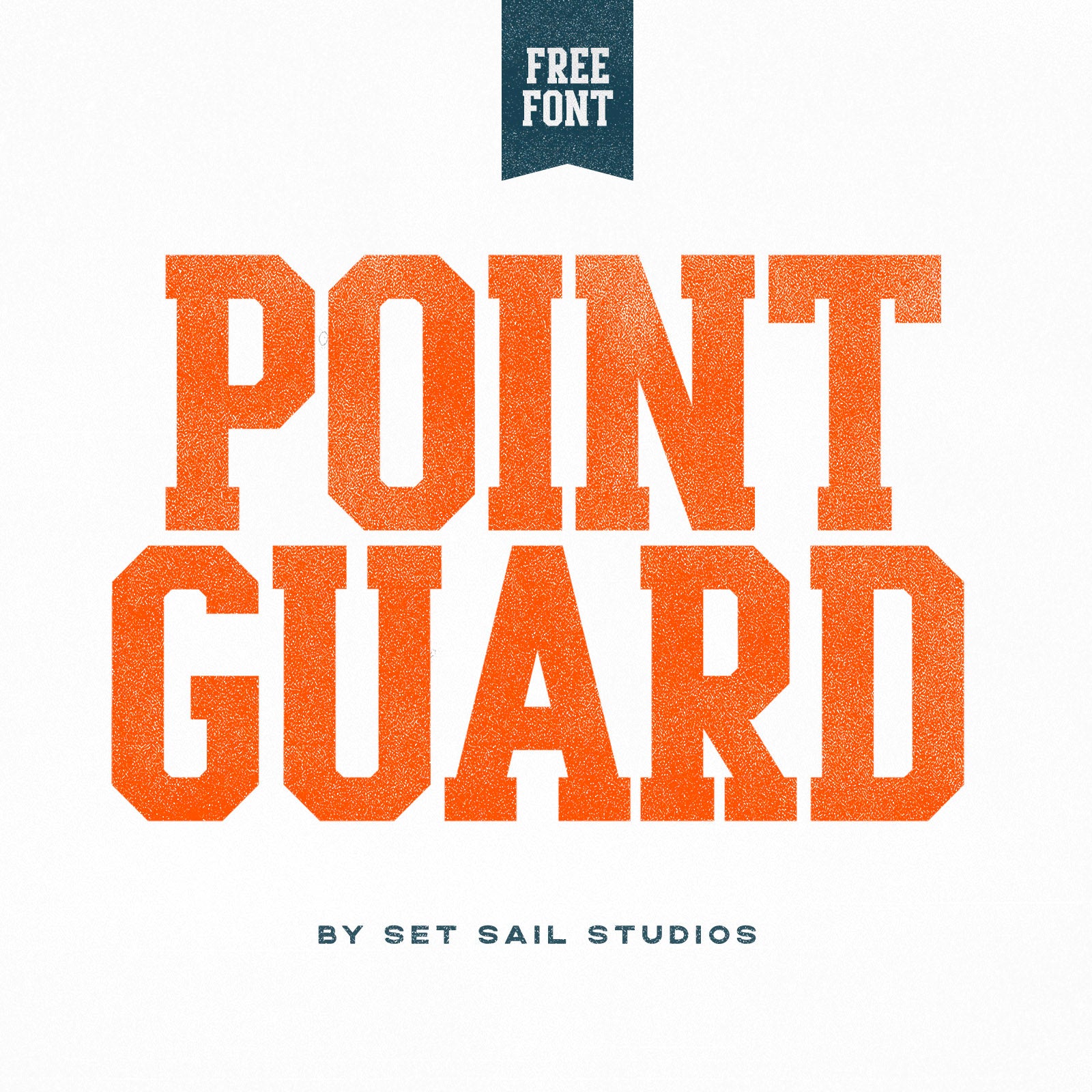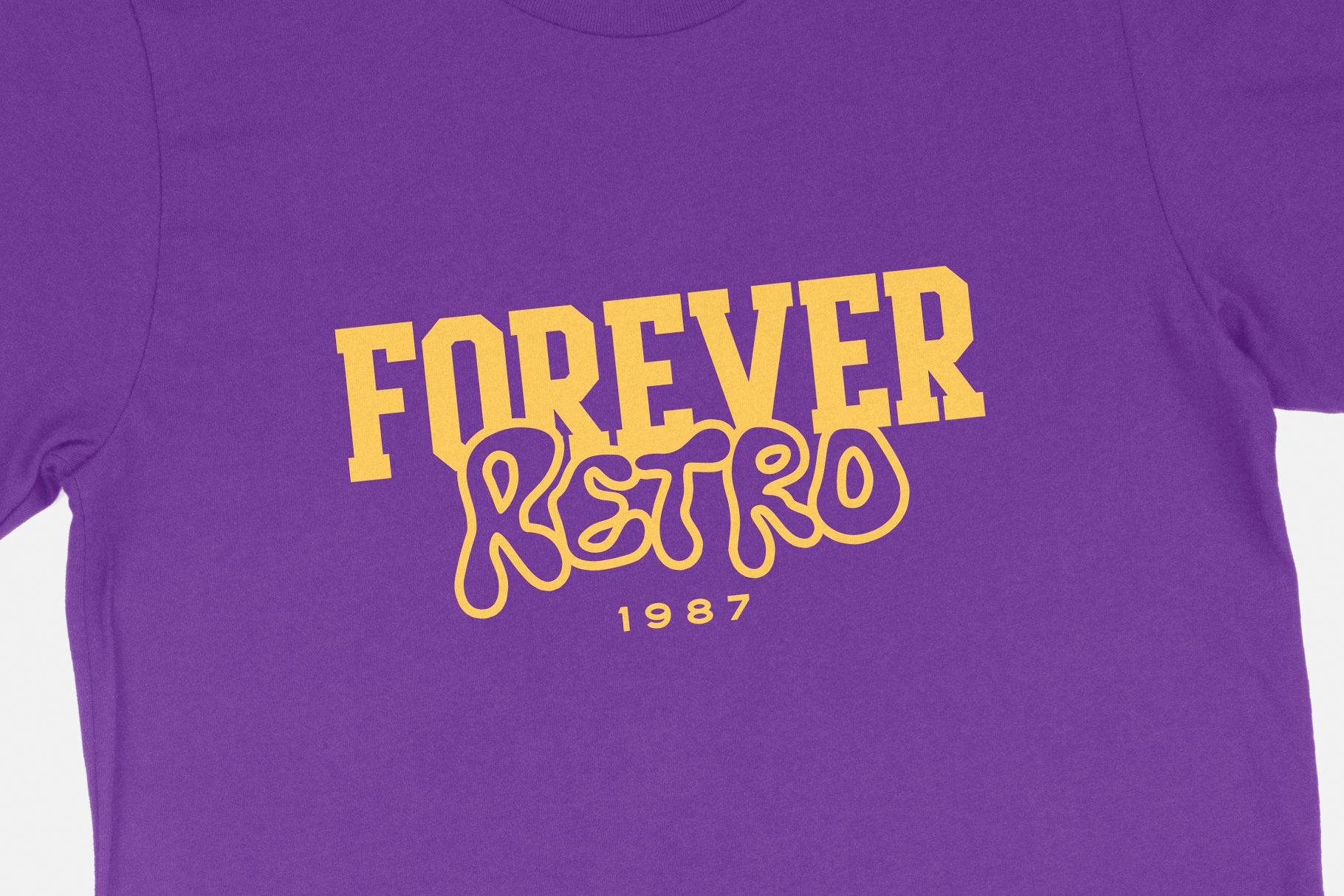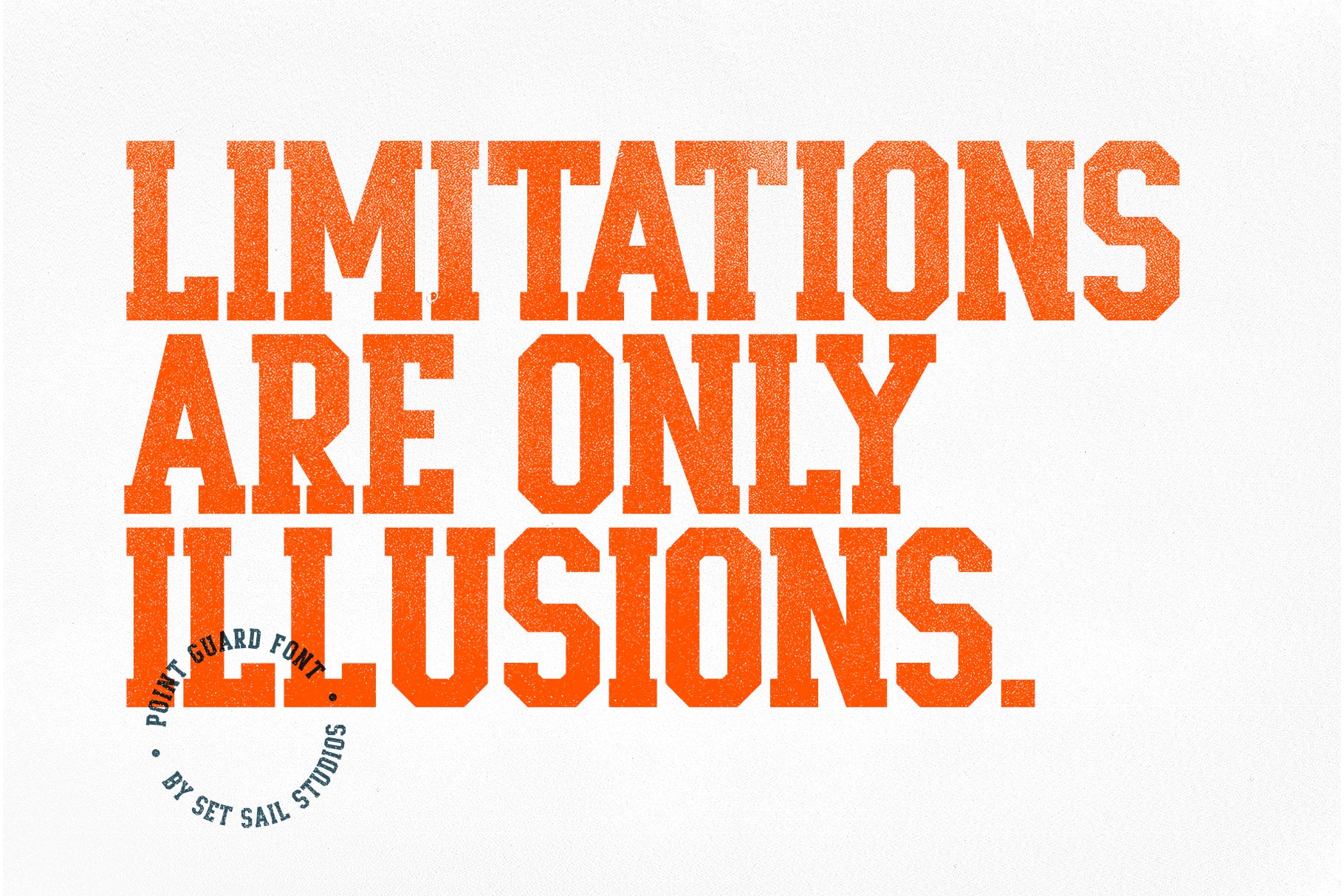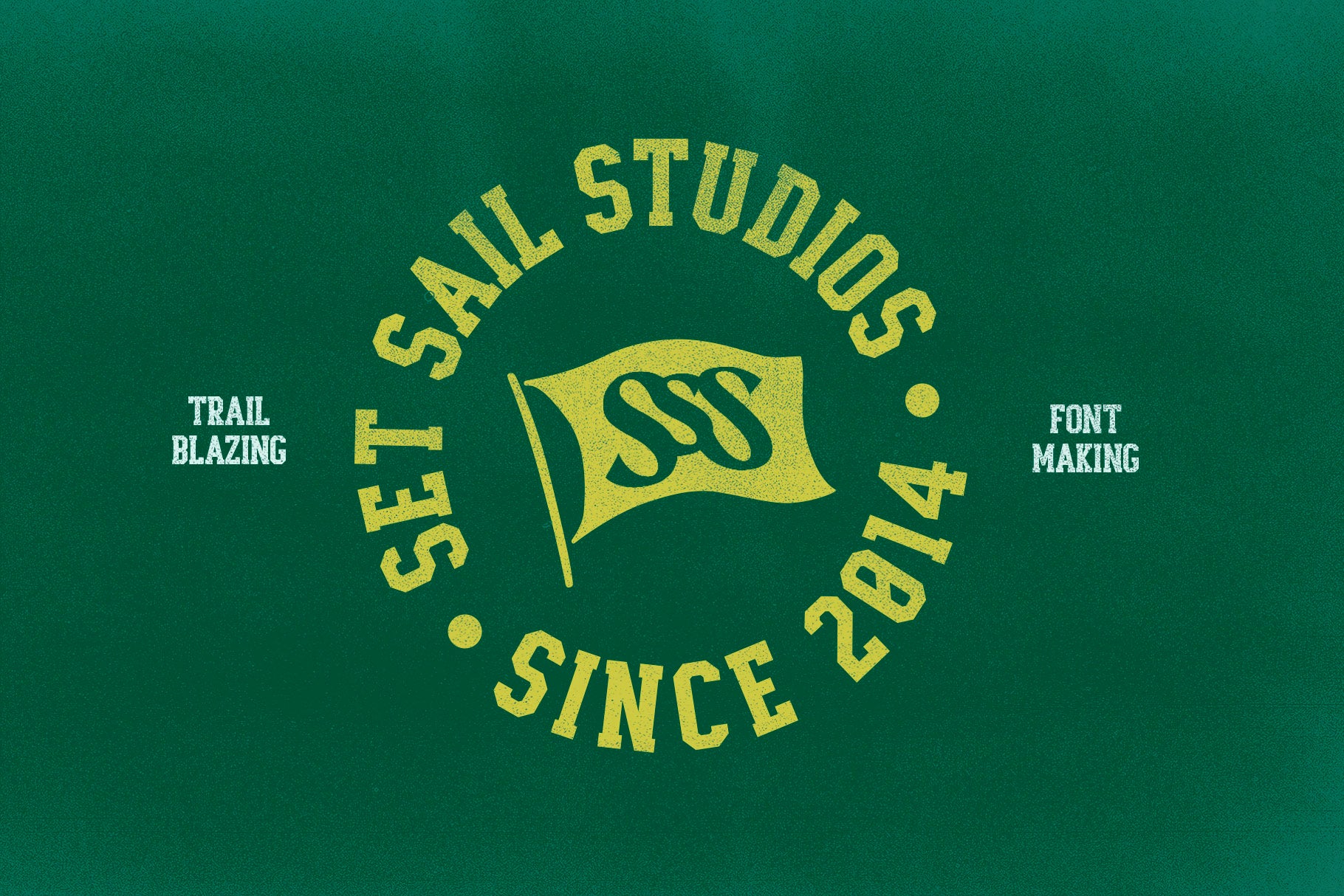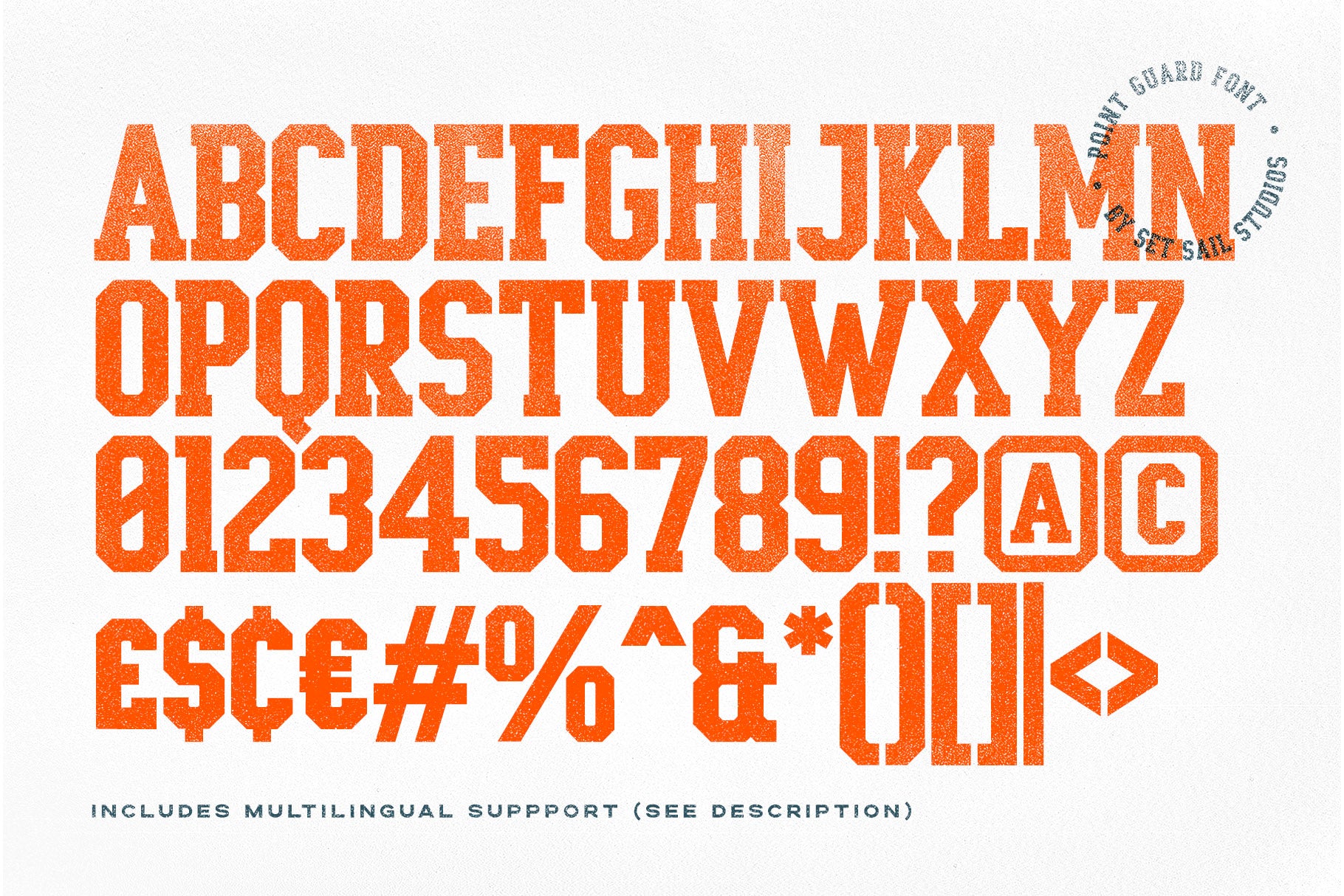
Point Guard Font
Point Guard is a modern all-caps slab-serif font inspired by old school sports jersey’s. It’s a guaranteed home-run whenever the need arises for a big hitting, bold typography – ideal for logos, merchandise, posters, and standout display text.
Includes a large range of punctuation, and language support for English, French, Italian, Spanish, Portuguese, German, Swedish, Norwegian, Danish, Dutch, Finnish, Indonesian, Malay, Hungarian, Polish, Croatian, Turkish, Romanian, Czech, Latvian, Lithuanian, Slovak, Slovenian.
Point Guard is an all-caps slab-serif font inspired by sports jersey lettering. It includes a wide range of punctuation and supports 22 languages, including English, French, Spanish, German, and Dutch.